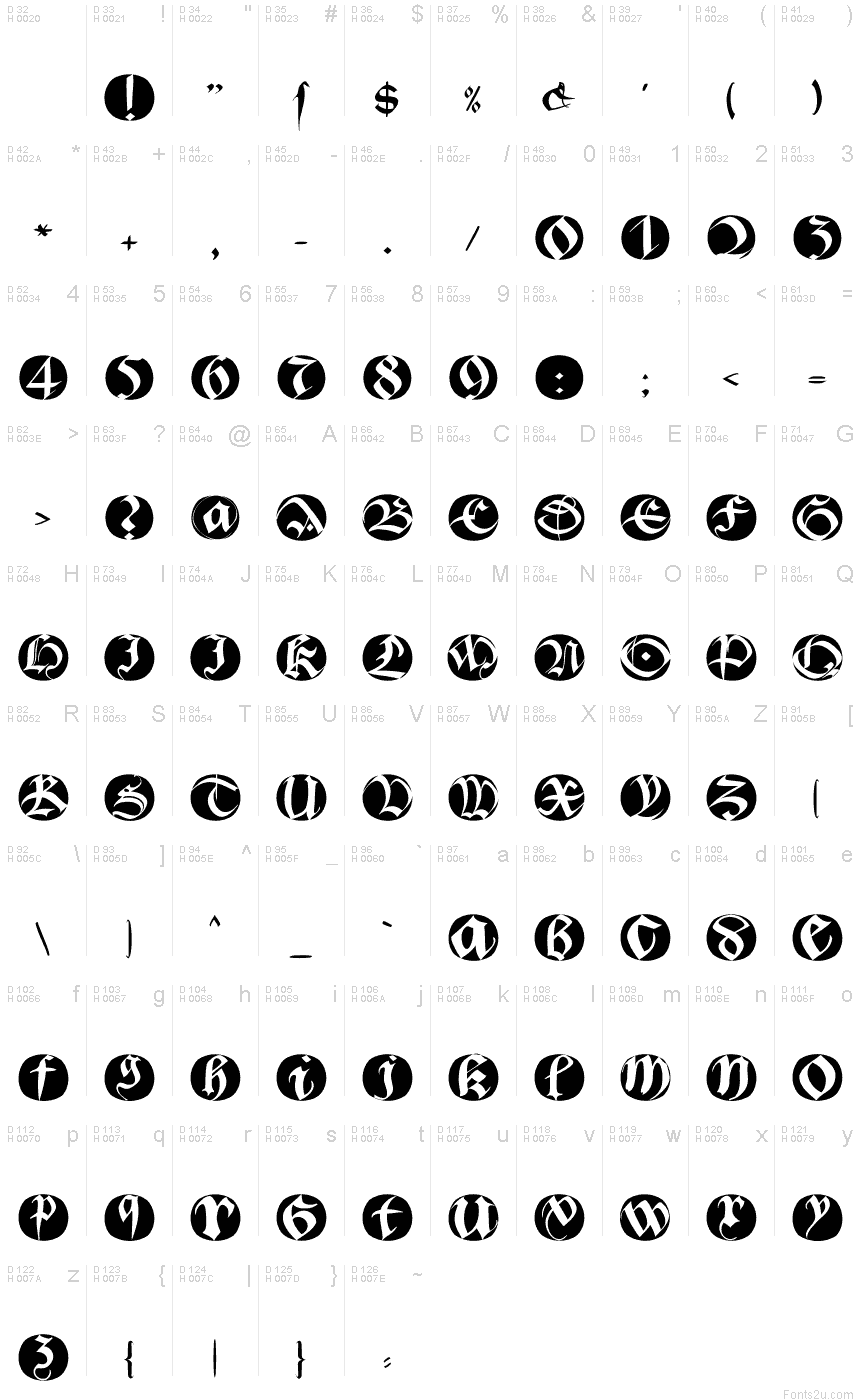
BastardaButtonsBeta
Bastarda Buttons Beta font by M. Klein is a free gothic medieval typeface that turns every character into a bold, circular emblem. Each black “button” feels like a coin stamped with sharp, angular calligraphy, giving your text a dense, inky weight that’s both mysterious and legible. The rhythm of repeating circles creates a strong visual line, so even short words feel like a row of arcane seals.
Using Bastarda Buttons Beta, you can add instant drama to fantasy game UI, enamel pin designs, badges, stickers, dark merch, or chapter markers in zines and comics. This free font shines on logos for metal bands or occult-inspired brands, where you need compact marks that still read at a glance. Try pairing it with a clean geometric sans in small text, and set Bastarda Buttons Beta large so those circular glyphs become graphic icons rather than simple letters.